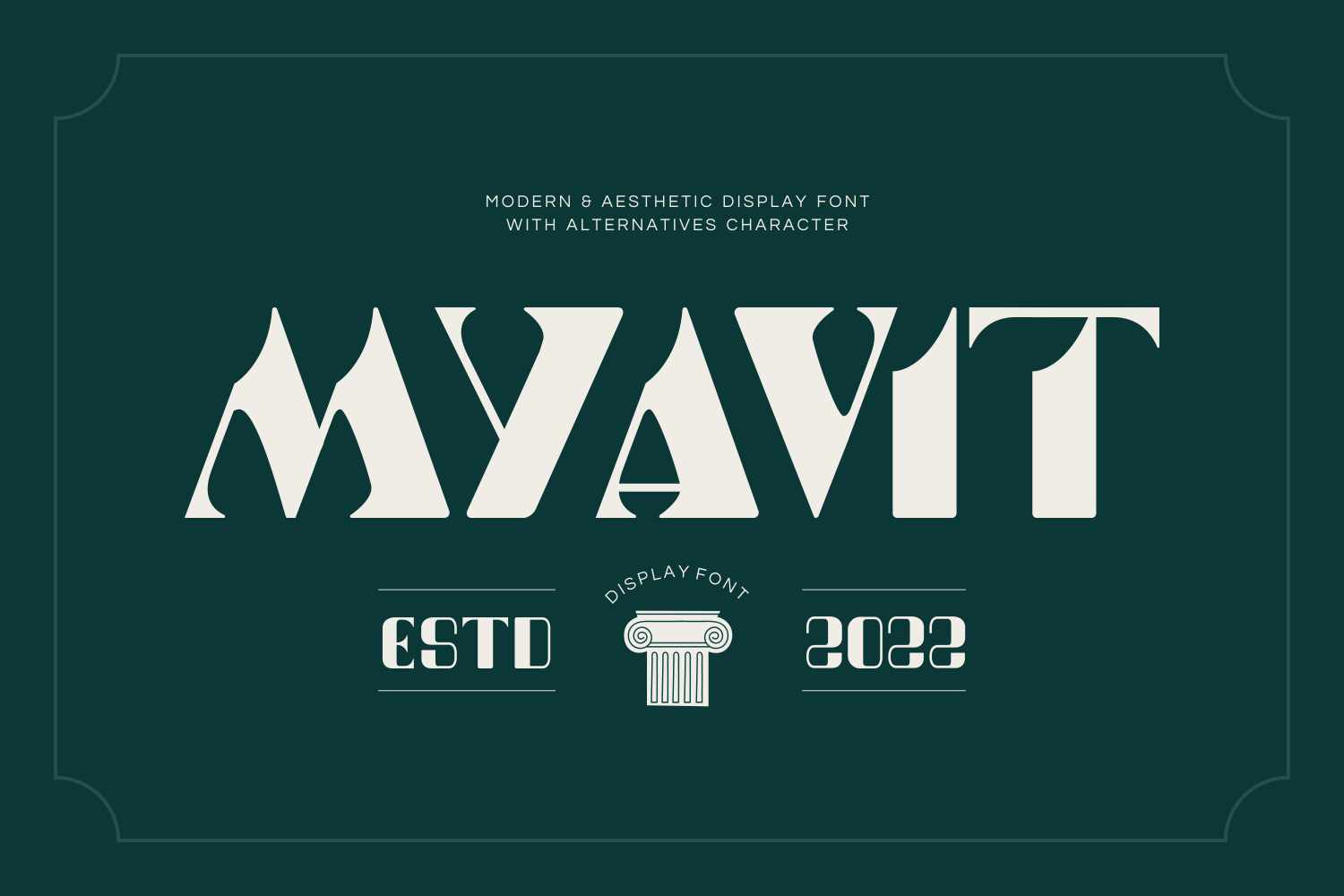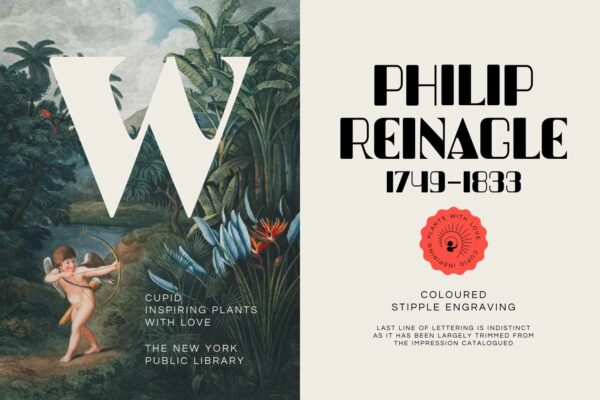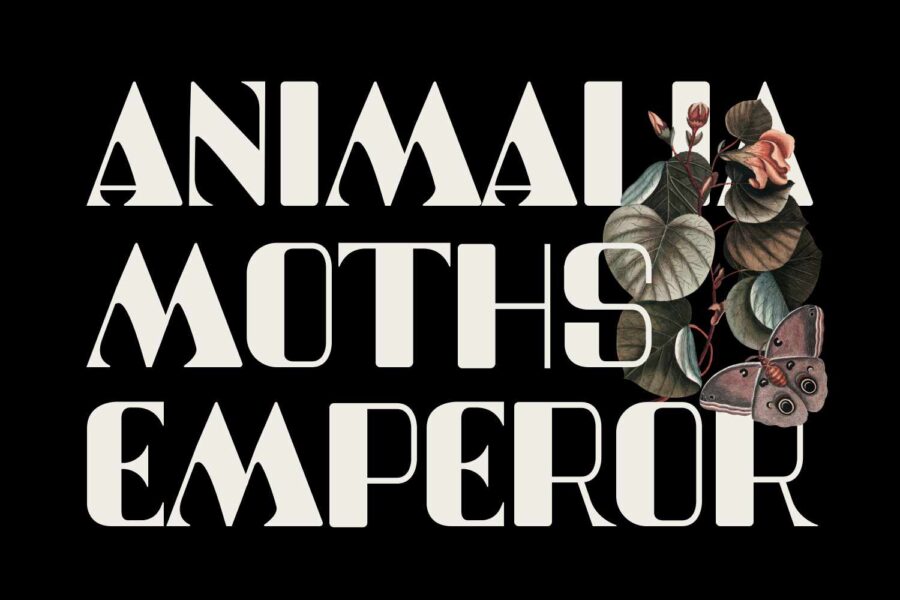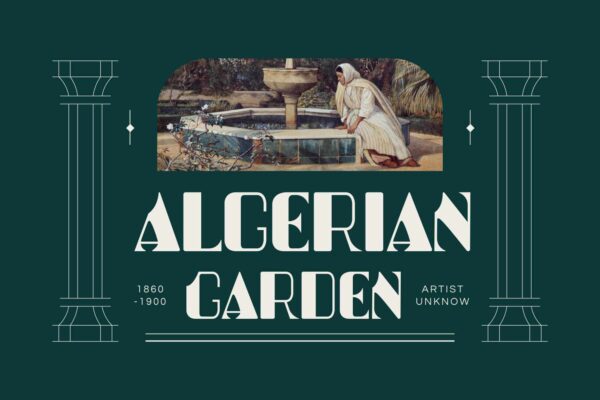
Myavit
Myavit is a modern display font designed with a bold yet artistic flair, combining classic serif elements with sharp geometric cuts and contemporary detailing. This font exhibits a strong visual presence, making it ideal for statement headlines, branding, editorial layouts, and artistic posters. The high contrast between thick and thin strokes, along with its unique alternative characters, adds a sense of elegance and creativity.
Perfectly suited for design projects that demand both sophistication and originality, Myavit offers extensive multilingual support and stylistic versatility. With its striking uppercase forms and thoughtfully crafted alternates, Myavit brings a sense of architectural refinement and expressive identity to every word it shapes.